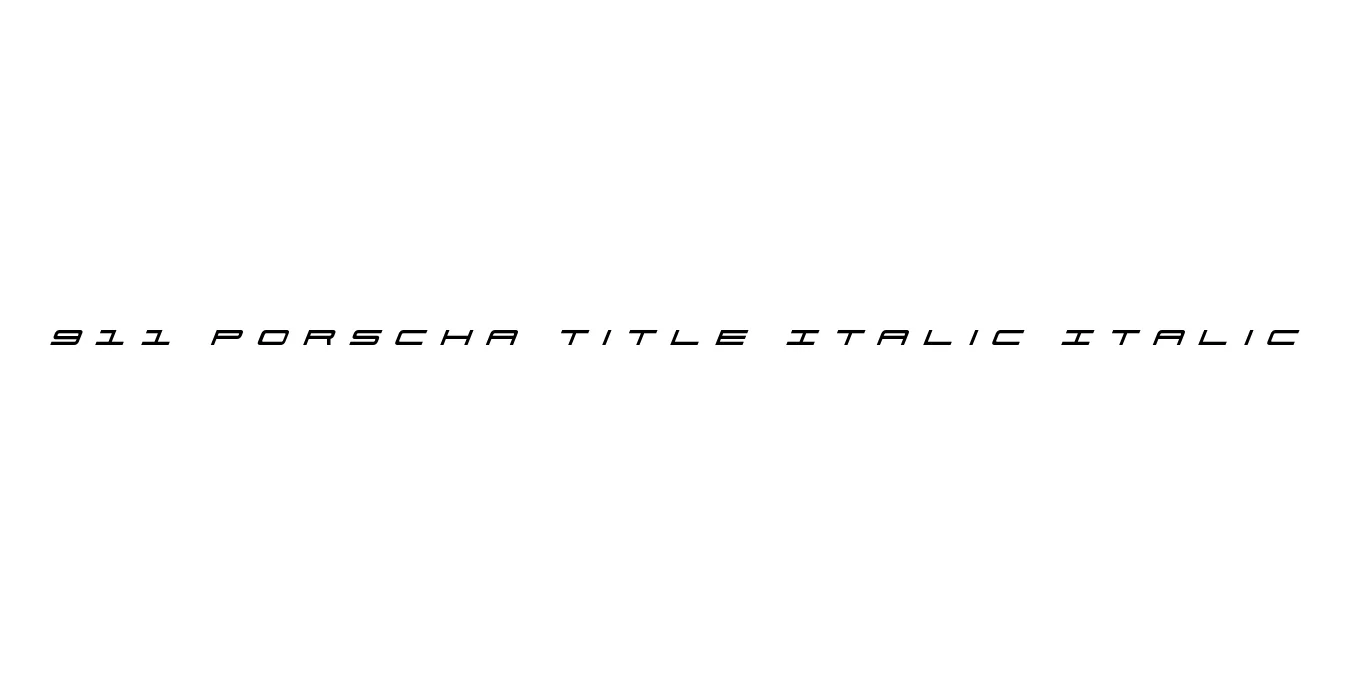
911 Porscha Title Italic Italic
Designed by Iconian Fonts (Dan Zadorozny)
| Font Name | 911 Porscha Title Italic |
| Category | Display / Techno |
| Designer | Iconian Fonts (Dan Zadorozny) |
| Similar Fonts | Eurostile, Microgramma, Venus Rising, Grand Prix |
911 Porscha Title Italic is a high-performance display typeface heavily inspired by the iconic typographic branding found in the automotive industry, specifically mirroring the sleek, horizontal aesthetic of the Porsche logo. Developed by Dan Zadorozny of Iconian Fonts, this typeface family is designed to convey speed, power, and precision. The Title Italic variant emphasizes these qualities through its aggressive slant and wide, extended letterforms that mimic the aerodynamic profile of a luxury sports car.
This typeface has become a go-to choice for designers working within the automotive, gaming, and tech sectors. Its clean lines and futuristic geometric construction ensure that it remains highly legible even in high-speed visual contexts, such as racing decals or motion graphics. Because of its bold and authoritative presence, it is frequently utilized for large-scale headlines, cinematic titles, and branding projects that require a sense of modern engineering and high-octane energy.
911 Porscha Title Italic Italic Best Uses
Ideal for car club logos, dealership signage, and vehicle decals.
Perfect for racing game menus, HUDs, and title screens.
Excellent for high-speed video intros and sports broadcast overlays.
Great for t-shirts and hats related to car culture and motorsports.